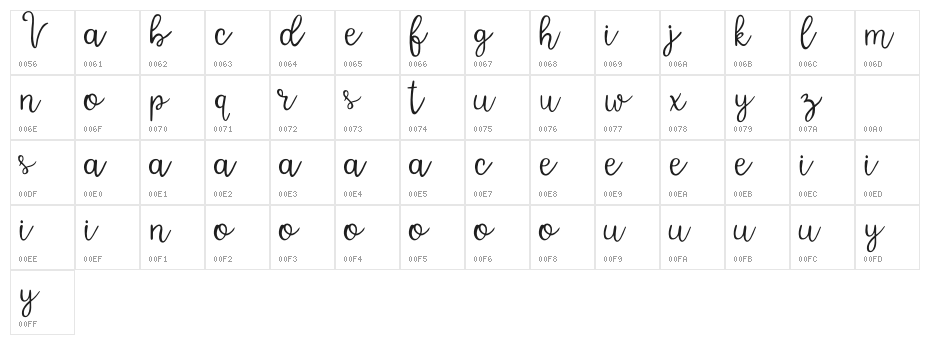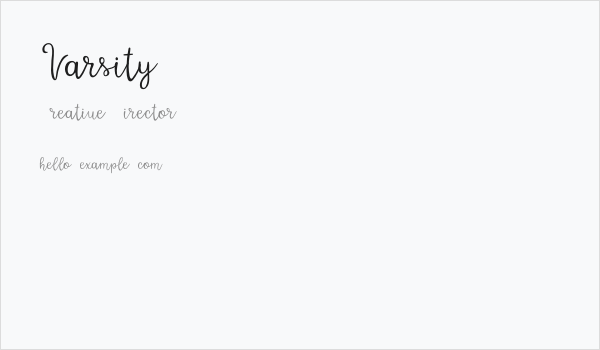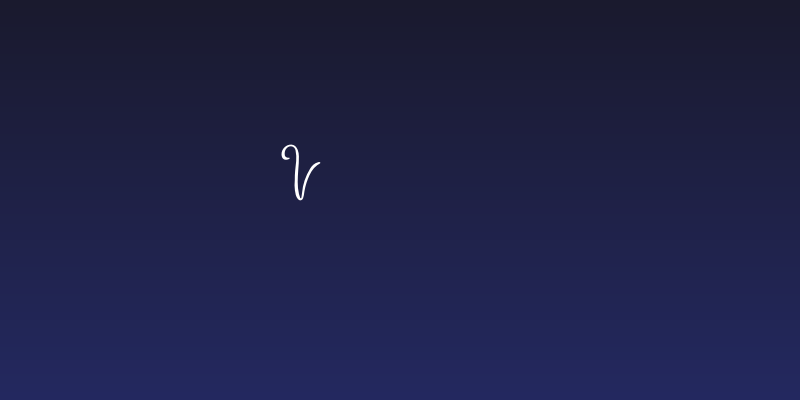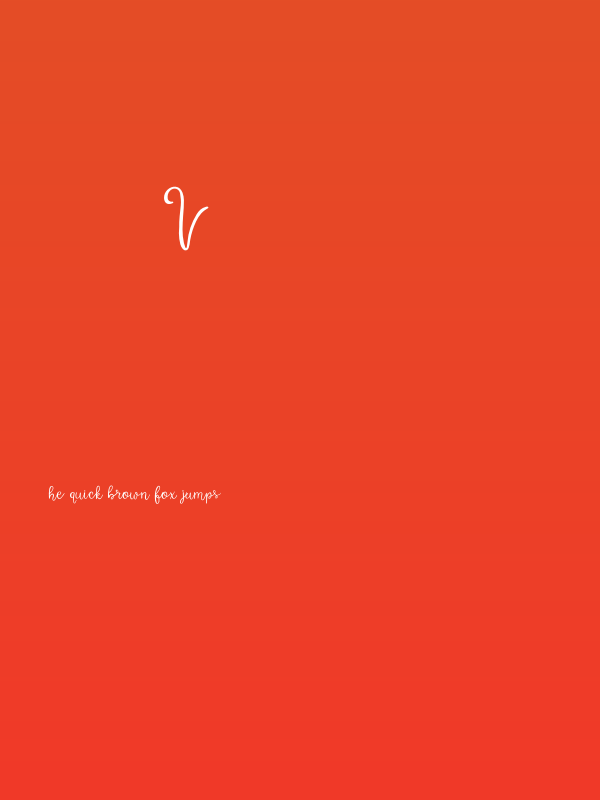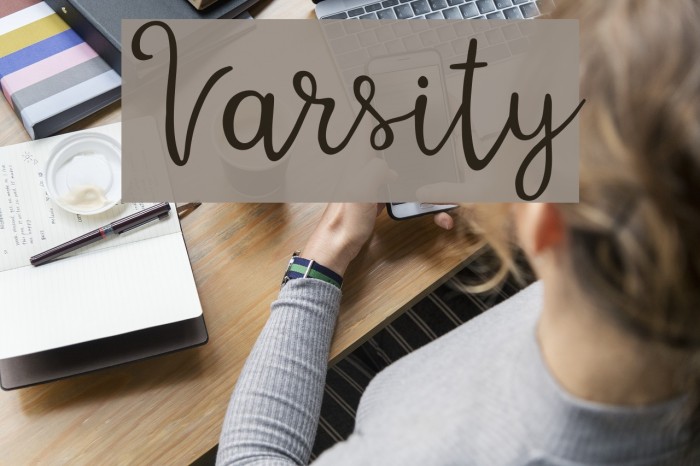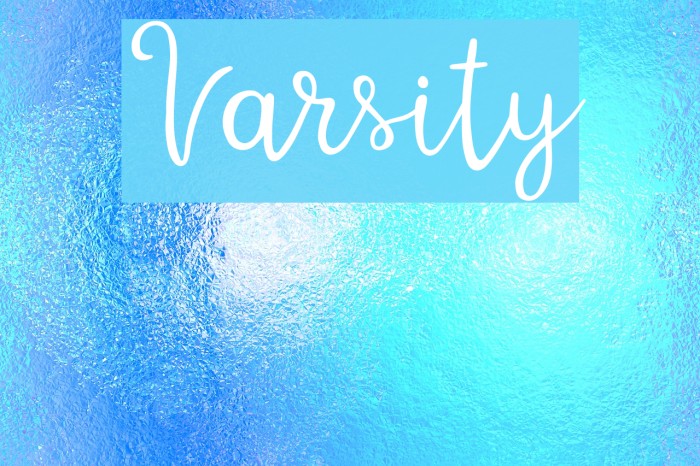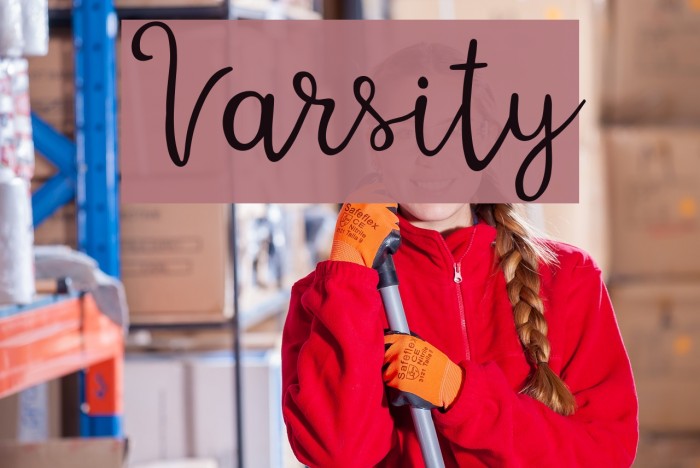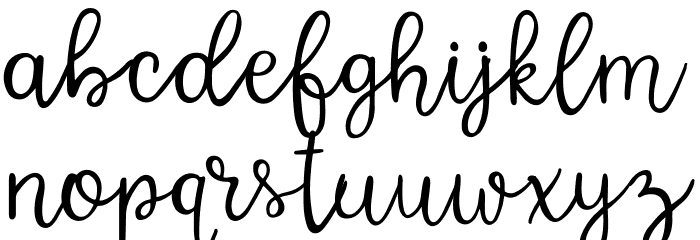
Varsity Font
Varsity Description
This font exudes a playful and elegant script style, characterized by its smooth, flowing lines and cursive nature. The letters are interconnected, creating a seamless and continuous appearance that mimics natural handwriting. The strokes are moderately thick, providing a balanced contrast that enhances readability while maintaining a stylish flair. The font's overall aesthetic is both casual and sophisticated, making it suitable for a variety of creative applications. Its charming and friendly demeanor is ideal for projects that require a personal touch, such as invitations, greeting cards, and branding materials.
| Overall Style | Elegant, Playful |
| Use Case | Invitations, Greeting cards, Branding |
| Proposed Projects | Ideal for invitations, greeting cards, branding materials, and any project requiring a personal touch. |